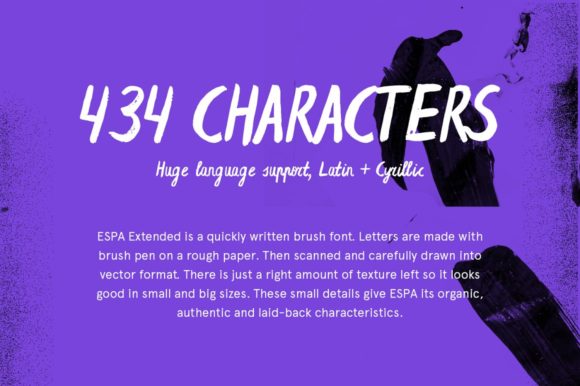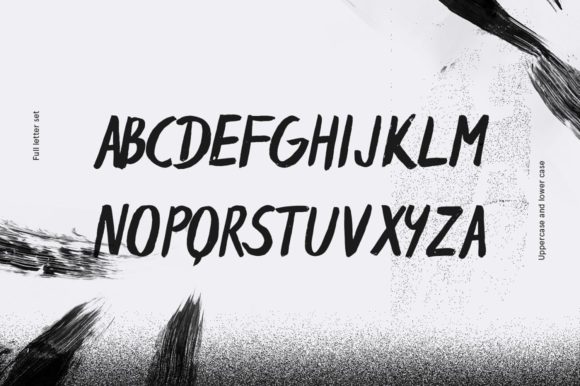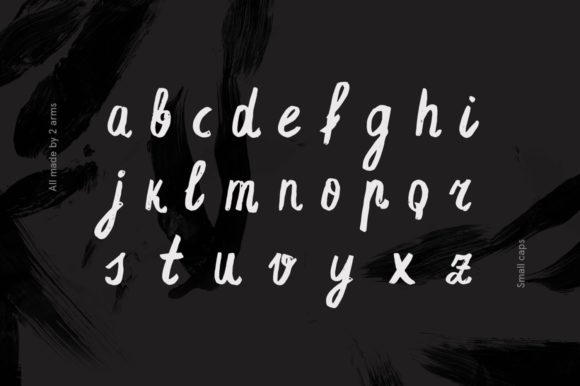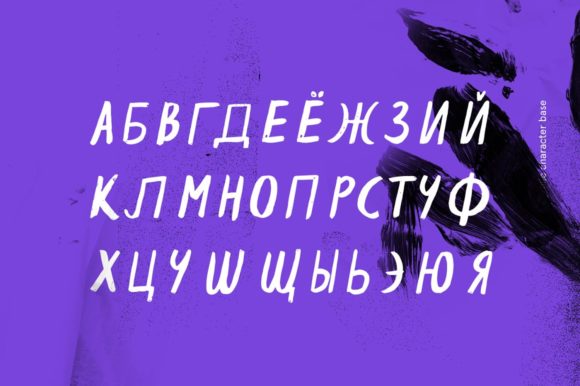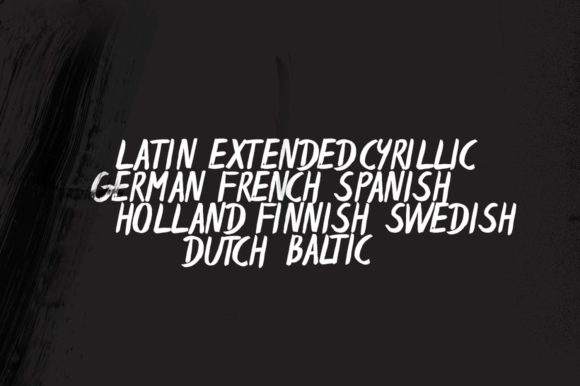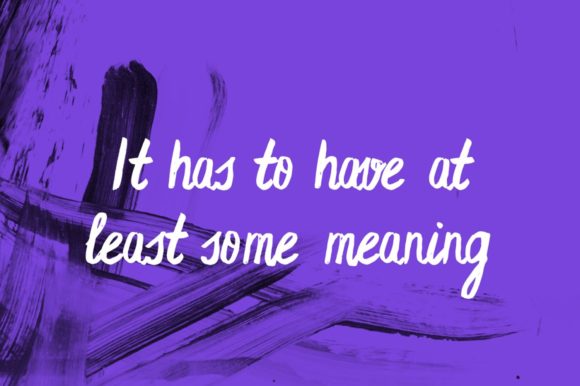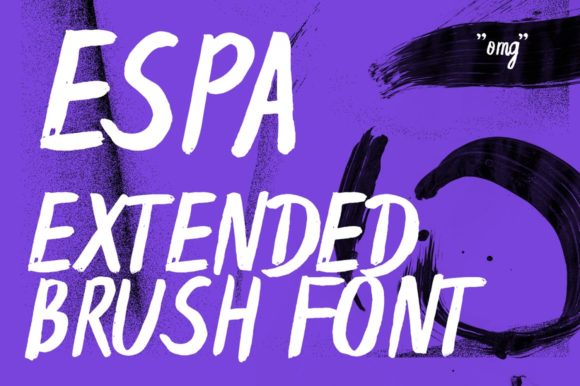
Introducing Espa Font: The Hand-Drawn Brush Font for Creative Designs
Are you a designer or crafter looking for a unique and original font to bring your DIY projects to life? Look no further than Espa Font, a gorgeous and hand-drawn brush font that’s perfect for creating stunning designs. In this article, we’ll take a closer look at Espa Font, its features, and how you can use it to elevate your creative projects.
What is Espa Font?
Espa Font is a beautiful brush font that’s been hand-drawn with a thin water brush on acrylic paper. This unique approach gives each letter a distinctive, organic feel that’s perfect for creating original designs. Every letter in the Espa Font has been carefully crafted to ensure that it’s not only aesthetically pleasing but also highly legible.
Features of Espa Font
- Hand-drawn with a thin water brush on acrylic paper: This gives Espa Font its unique, organic feel that’s perfect for creating handmade or DIY designs.
- Perfect for creative projects: Whether you’re a designer, crafter, or DIY enthusiast, Espa Font is the perfect choice for adding a personal touch to your projects.
- Gorgeous and unique handwritten font: Espa Font is a one-of-a-kind font that’s sure to make your designs stand out from the crowd.
- Highly legible: Despite its organic feel, Espa Font is highly legible, making it perfect for use in a variety of design applications.
Why Use Espa Font?
So why should you use Espa Font for your creative projects? Here are just a few reasons:
- Add a personal touch: With Espa Font, you can add a personal touch to your designs that sets them apart from more generic fonts.
- Create original designs: Espa Font is the perfect choice for creating original designs that reflect your unique style and creativity.
- Perfect for DIY projects: Whether you’re working on a DIY craft project or a larger design project, Espa Font is the perfect choice for adding a handmade touch.
How to Use Espa Font
Using Espa Font is easy! Here are a few tips for incorporating it into your designs:
- Pair it with other fonts: Espa Font pairs well with a variety of other fonts, so don’t be afraid to experiment with different combinations.
- Use it for headings and titles: Espa Font is perfect for use in headings and titles, where its unique, hand-drawn feel can really make an impact.
- Add it to your design toolkit: If you’re a designer or crafter, Espa Font is a great addition to your design toolkit, providing a unique and versatile font that can be used in a variety of applications.
In conclusion, Espa Font is a gorgeous and unique handwritten font that’s perfect for creating original designs. With its hand-drawn, organic feel and highly legible letters, Espa Font is the perfect choice for designers, crafters, and DIY enthusiasts looking to add a personal touch to their projects. Whether you’re working on a DIY craft project or a larger design project, Espa Font is sure to bring your designs to life!